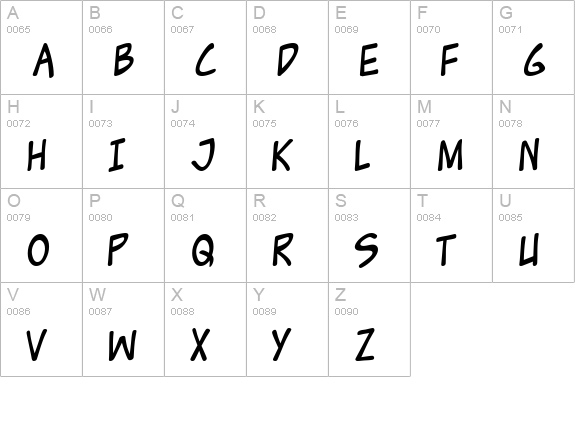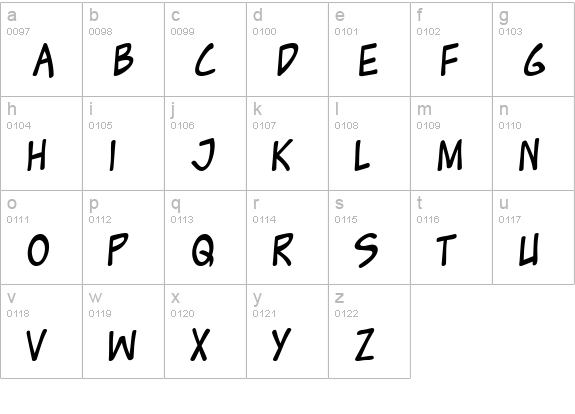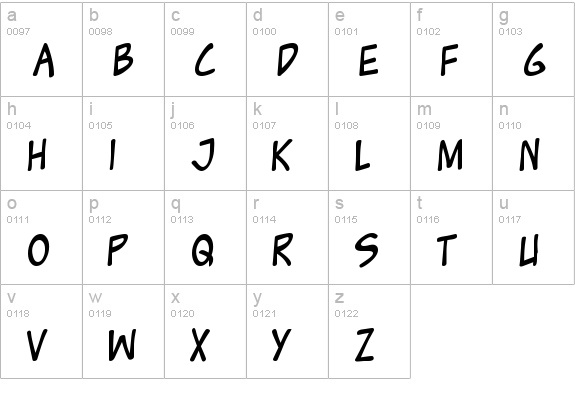
Zud Juice Font Details
Zud Juice font is a unique and eye-catching typeface that is sure to make your designs stand out. With its bold and modern look, this font is perfect for creating attention-grabbing headlines, posters, logos, and more. The playful curves and sharp edges of Zud Juice give it a dynamic and energetic feel, making it the perfect choice for projects that need a touch of personality. What's even better is that Zud Juice font is completely free to download at FontsMarket.com. Yes, you read that right - you can get your hands on this amazing font without spending a dime. So why wait? Add Zud Juice to your font collection today and start creating stunning designs that will leave a lasting impression.